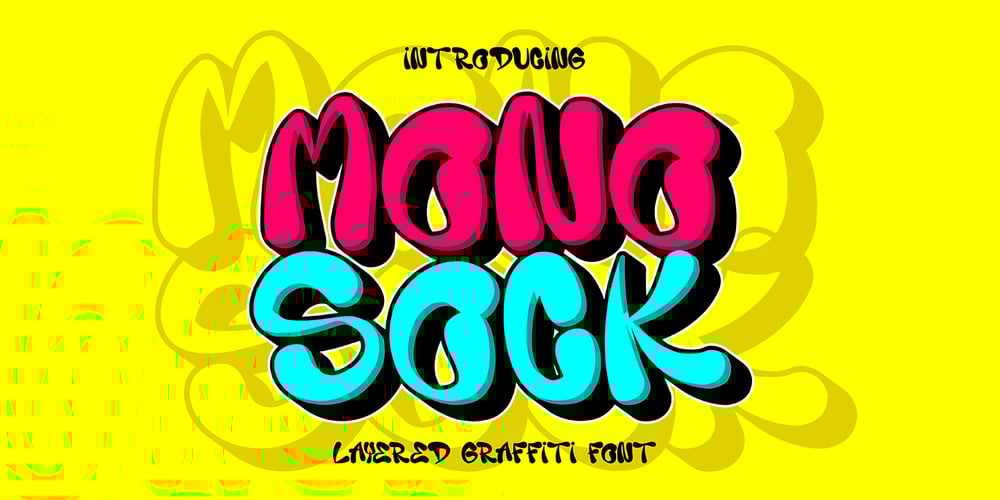
Monosock Layered Graffiti Font Family was designed by Sipanji and published by Sipanji21. Monosock Layered Graffiti contains 3 styles and family package options. Monosock is a layered graffiti font featuring three distinct styles: solid, inner shadow, and shadow. This versatile font is perfect for adding depth and dimension to your designs, making them pop with a dynamic 3D effect. Ideal for street and urban-themed projects, Monosock brings a bold, edgy aesthetic to posters, apparel, branding, and more. Its multiple layers provide creative flexibility, allowing you to mix and match styles to achieve the perfect look for your artwork.